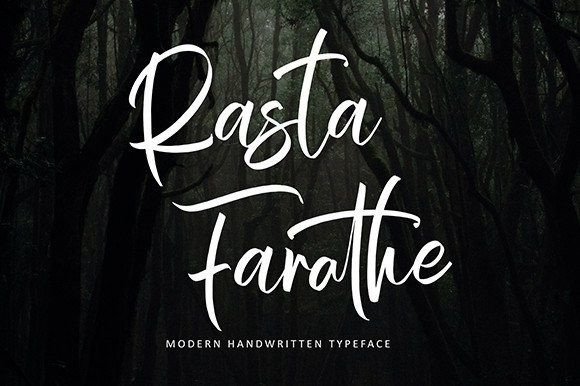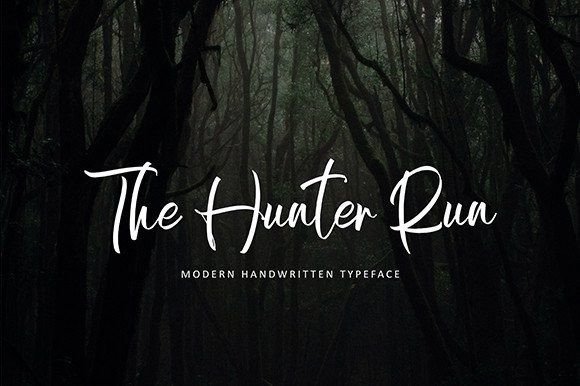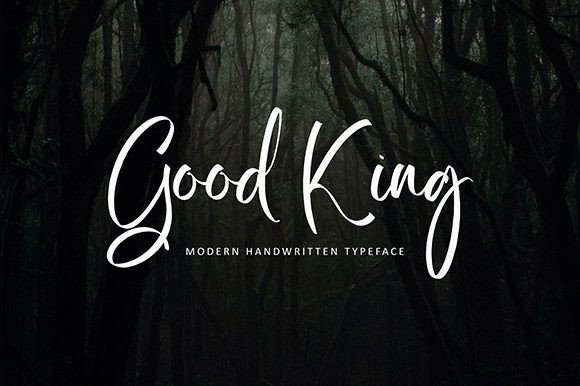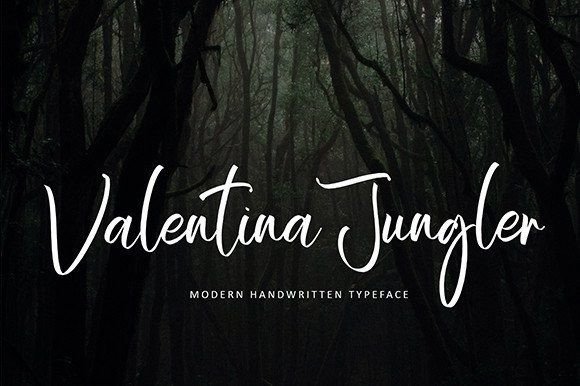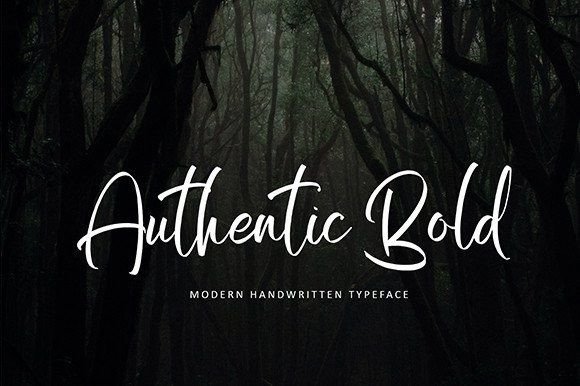
About Rasta Farathe Font
Rasta Farathe is a slim and exquisite handwritten font that exudes style, grace, and flowing elegance. With its slender design, this font has the power to elevate the look of your beautiful creations, adding a touch of sophistication while maintaining a grounded and natural feel.
The stylish and graceful qualities of Rasta Farathe make it a versatile choice for a variety of creative projects. Whether you’re working on branding, logos, invitations, or any other design, this font is crafted to enhance the overall aesthetic with its slender and flowing script.
The flowing nature of Rasta Farathe contributes to a sense of elegance, making it a suitable choice for projects that require a touch of sophistication. Its slim design adds a modern and stylish element to your text, creating a visually appealing and captivating effect.
Incorporating PUA encoding, Rasta Farathe allows users to access a wide array of amazing glyphs and ligatures with ease. This feature enhances the font’s creative possibilities, providing designers with the flexibility to customize and personalize their designs effortlessly.
In essence, Rasta Farathe is more than just a font; it’s a design element that brings slim elegance to your projects. Whether you’re working on branding, logos, invitations, or any other creative endeavor, this handwritten font adds a touch of sophistication and natural grace, contributing to the overall visual allure of your creations.